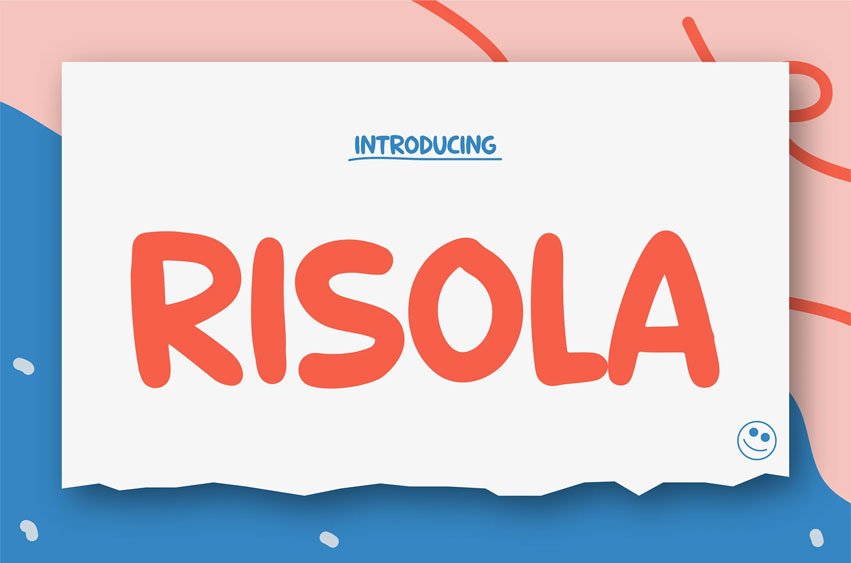
Risola Font
Risola Font is a joyful rounded display typeface designed to spark creativity and learning. Its soft curves, friendly shapes, and bouncy baseline create a cheerful vibe that captures children’s attention while staying perfectly readable. The letters feel hand-drawn yet clean, giving a playful and modern balance — ideal for storybooks, classroom posters, and educational materials. Every curve radiates warmth, positivity, and approachability, making Risola a delightful companion for any kid-focused project.
From school posters to children’s books, Risola brings words to life with energy and fun. Its expressive rhythm and inviting letterforms make reading a joyful experience, helping kids engage with letters, colors, and characters. Whether you’re creating a learning app, storybook cover, or kids’ brand identity, Risola gives your design a lighthearted personality that feels both professional and playfully imaginative.
Key Features :
• Soft & Rounded Forms – Creates a friendly, child-safe aesthetic that feels approachable and warm.
• Perfect Readability – Balanced proportions ensure clear legibility for early readers.
• Expressive & Fun Tone – Ideal for educational content, posters, and playful branding.
• Modern Craftsmanship – Combines handcrafted charm with digital precision.
• Versatile Application – Works beautifully across print, digital, and illustrated environments.